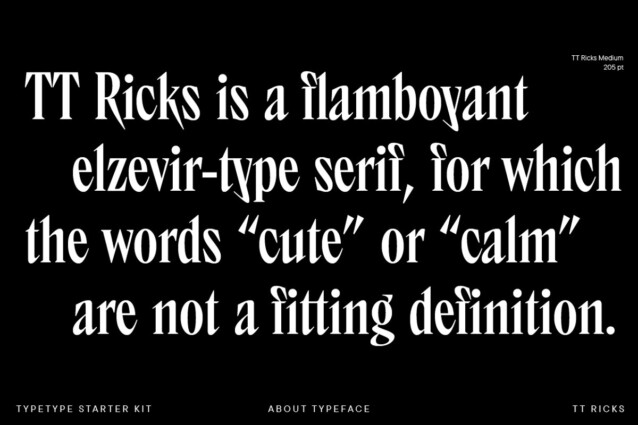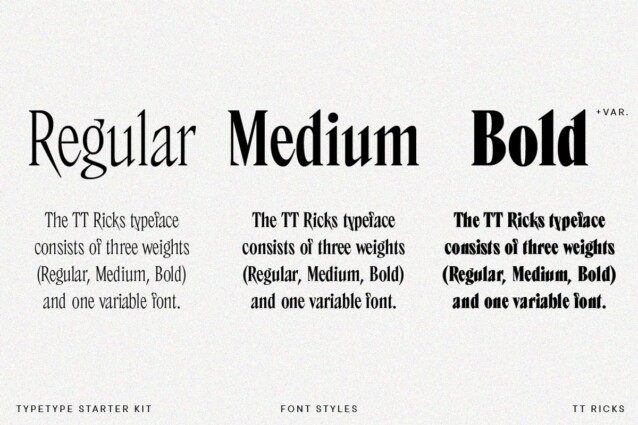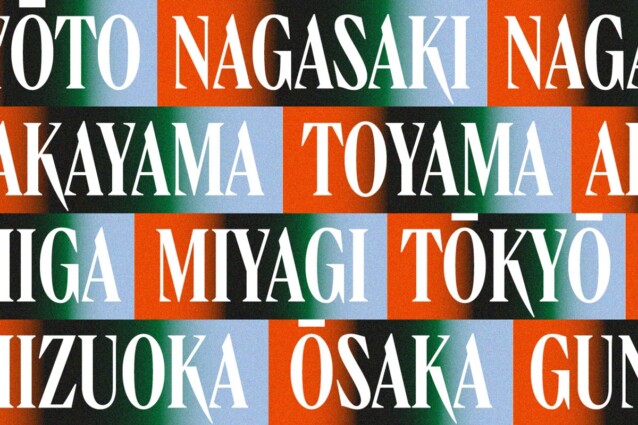
TT Ricks Font is an expressive serif with an edgy temperament. The typeface is inspired by the pre-digital font De Vinne, designed in 1892 by Gustav F. Schroeder. When creating TT Ricks, we decided to keep certain aspects of the historical prototype. However, we aimed to break free from any constraints, find a completely new personality for the font, and bring fresh, lively features to its design.
TT Ricks stands out for its high contrast, extremely dense spacing, narrow letterforms, and unusual serifs resembling thorns. The typeface has many peculiar details, like a diagonal axis of ovals in rounded characters (c, e, s), distinctive lowercase characters in Latin alphabets, or asymmetrical descending elements in the letters Дд and Цц. This is an “angry” serif, which sometimes mellows its bold attitude: its regular font style is sharp and spiky, but the bold one is more sturdy and solid, with Gothic traits.
In the updated typeface version, we completely redesigned kerning and refined hinting. We added Cyrillic alphabets and extended the existing Latin ones. The basic currency symbol set grew, and we designed minuscule currency symbols, including tabular versions for both lettercases. We implemented fractions and figures for numerators and denominators and added circled figures. Besides, TT Ricks, version 2.000, features new stylistic sets for Cyrillic alphabets, and its large set of original icons broadens the typeface’s application range and brings out its personality even more.
TT Ricks shines brightest in medium and large point sizes, attracting the maximum attention. This typeface is ideally suited for packaging or poster design and book graphics.